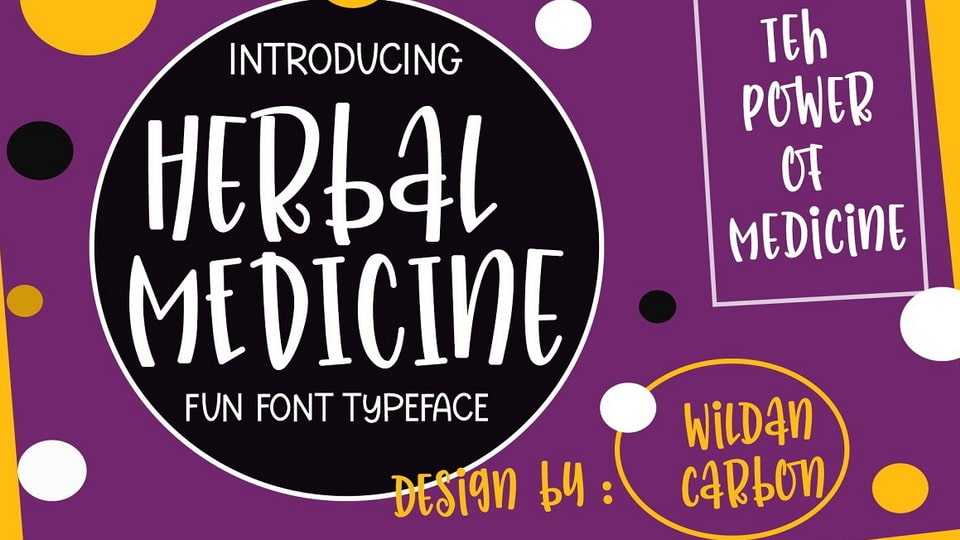
Download Herbal Medicine font, a fun and quirky handwritten typeface with a unique style, playful look and feel. Use this gorgeous and unique font to bring any DIY a cool look.
Designer: Wildan Type